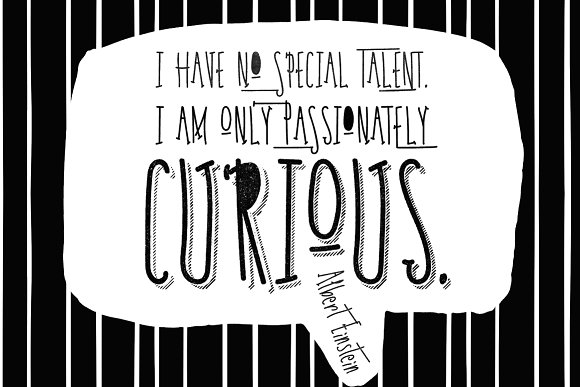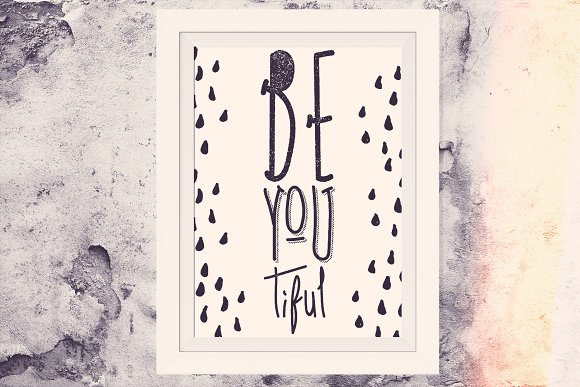
Introduction to Operation 22 Font
As designers, we’ve all been there – staring at a blank canvas, desperately searching for the perfect font to bring our creative project to life. The struggle is real, especially when you’re working on a high-quality design that requires a level of sophistication and elegance. But what if you stumbled upon a font that not only meets your expectations but exceeds them? Enter the Operation 22 Font, a beautiful handcrafted font created by the talented team at Creativeqube.
With its transparent background and sleek design, the Operation 22 Font is a game-changer for designers looking to elevate their creative work. And the best part? It’s available for free download, making it an invaluable resource for anyone looking to add a touch of sophistication to their designs.
Key Features of Operation 22 Font
- High-quality, professional font design for creative projects, available for free download.
- Unique and stylish typography with a transparent background, allowing for versatility in design applications.
- Designed to be highly legible at various resolutions and sizes, making it suitable for a range of creative projects.
- Includes a range of characters, including Latin and Cyrillic scripts, for global design applications.
Honest Review: Operation 22 Font
I recently stumbled upon the Operation 22 Font while searching for a unique design resource for a creative project. I’m glad I did, as it’s a high-quality font that has definitely added a new dimension to my work.
What works well about Operation 22 Font is its versatility. The font is perfect for creating visually appealing text overlays on images with a transparent background, making it a great asset for graphic designers and content creators.
- Unique and creative design
- High-quality and versatile
However, there are some limitations to consider. The font may not be suitable for all types of projects, and it’s not as extensive as some other font collections.
Overall, I’m impressed with Operation 22 Font and would definitely recommend it to fellow designers looking for a creative and unique design resource.
⚠️ Limitations: Not suitable for all project types, not extensive font collection
✨ What works well: Unique design, high-quality, versatile, free download available
Operation 22 Font
Operation 22 Font is a high-quality design resource that offers a unique, creative project experience with its transparent background feature.
To get the most out of Operation 22 Font, experiment with different font sizes, colors, and styles to create a unique look for your project.
You can also use the font in combination with other design elements such as graphics and images to create a visually appealing design.
Operation 22 Font is ideal for creating logos, business cards, and other marketing materials where a professional and creative look is required.
It’s also a great resource for designers who want to create high-quality designs with a transparent background feature.